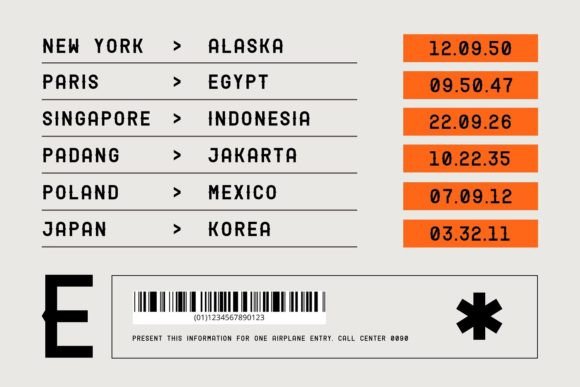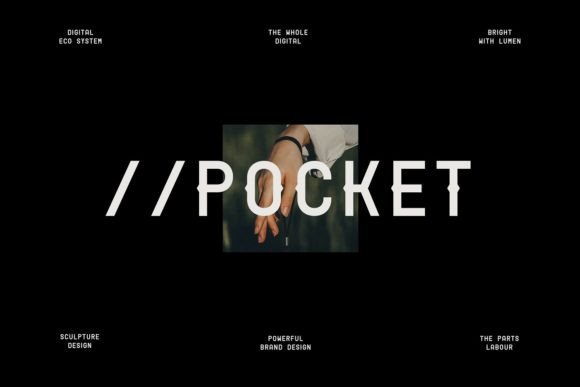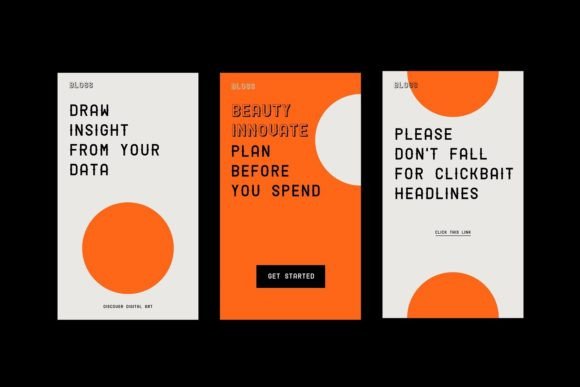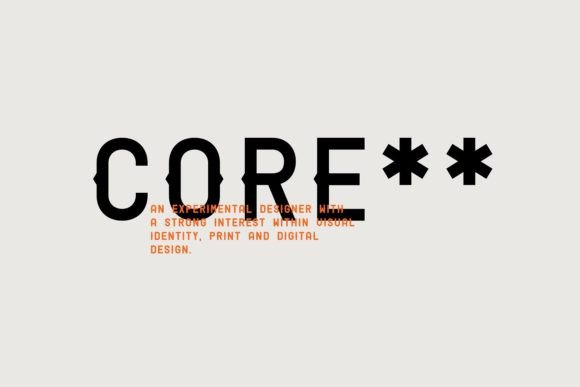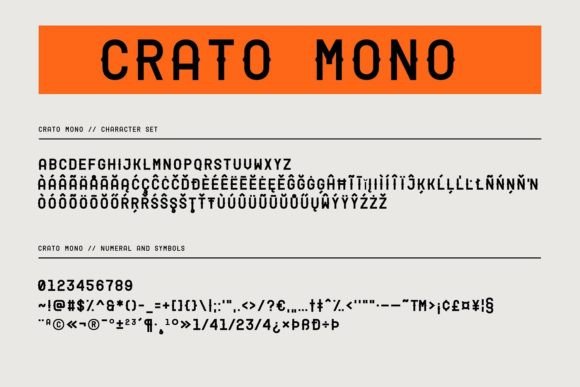
Crato Mono Font: The Perfect Blend of Classic and Modern Design
In the world of typography, finding the perfect font that combines classic charm with modern aesthetics can be a daunting task. However, with Crato Mono, a modern monospaced font, designers and crafters can now achieve a seamless blend of vintage appeal and contemporary style. In this article, we’ll explore the unique features of Crato Mono and how it can elevate your design projects.
What is Crato Mono?
Crato Mono is a sans serif monospaced font that boasts a distinctive style, making it perfect for a wide range of design applications. Its monospaced design ensures that each character takes up the same amount of space, creating a uniform and harmonious look. This feature makes Crato Mono ideal for coding, writing, and designing, as it provides excellent readability and legibility.
Timeless Appeal with a Modern Twist
Crato Mono’s design is rooted in classic typography, yet it has been carefully crafted to incorporate modern elements. The font’s sans serif style gives it a clean and minimalist look, while its monospaced design adds a touch of nostalgia. This blend of old and new makes Crato Mono a versatile font that can be used in various design contexts, from retro-inspired logos to modern websites.
Key Features of Crato Mono
- Monospaced design: Each character takes up the same amount of space, creating a uniform look.
- Sans serif style: A clean and minimalist design that ensures excellent readability.
- Timeless appeal: A classic design that never goes out of style.
- Versatile: Suitable for a wide range of design applications, from coding to branding.
Uses of Crato Mono
Crato Mono’s versatility makes it an excellent choice for various design projects. Here are some of the ways you can use this font:
- Logo design: Create a retro-inspired logo with a modern twist.
- Web design: Use Crato Mono as a font for your website, adding a touch of nostalgia to your design.
- Coding: Take advantage of the font’s monospaced design, making it perfect for coding and programming.
- Branding: Use Crato Mono for your brand’s typography, adding a touch of classic charm to your identity.
Benefits of Using Crato Mono
By choosing Crato Mono for your design projects, you can enjoy several benefits:
- Improved readability: The font’s monospaced design and sans serif style ensure excellent readability.
- Unique aesthetic: Crato Mono’s distinctive style sets it apart from other fonts.
- Versatility: Use the font in various design contexts, from digital to print.
- Timeless appeal: The font’s classic design ensures it will never go out of style.
Crato Mono is a modern monospaced font that offers a perfect blend of classic charm and modern aesthetics. Its versatile design makes it suitable for a wide range of design applications, from coding to branding. With its distinctive style and timeless appeal, Crato Mono is an excellent choice for designers and crafters looking to add a touch of nostalgia to their designs. Try Crato Mono today and discover the perfect font for your next project!